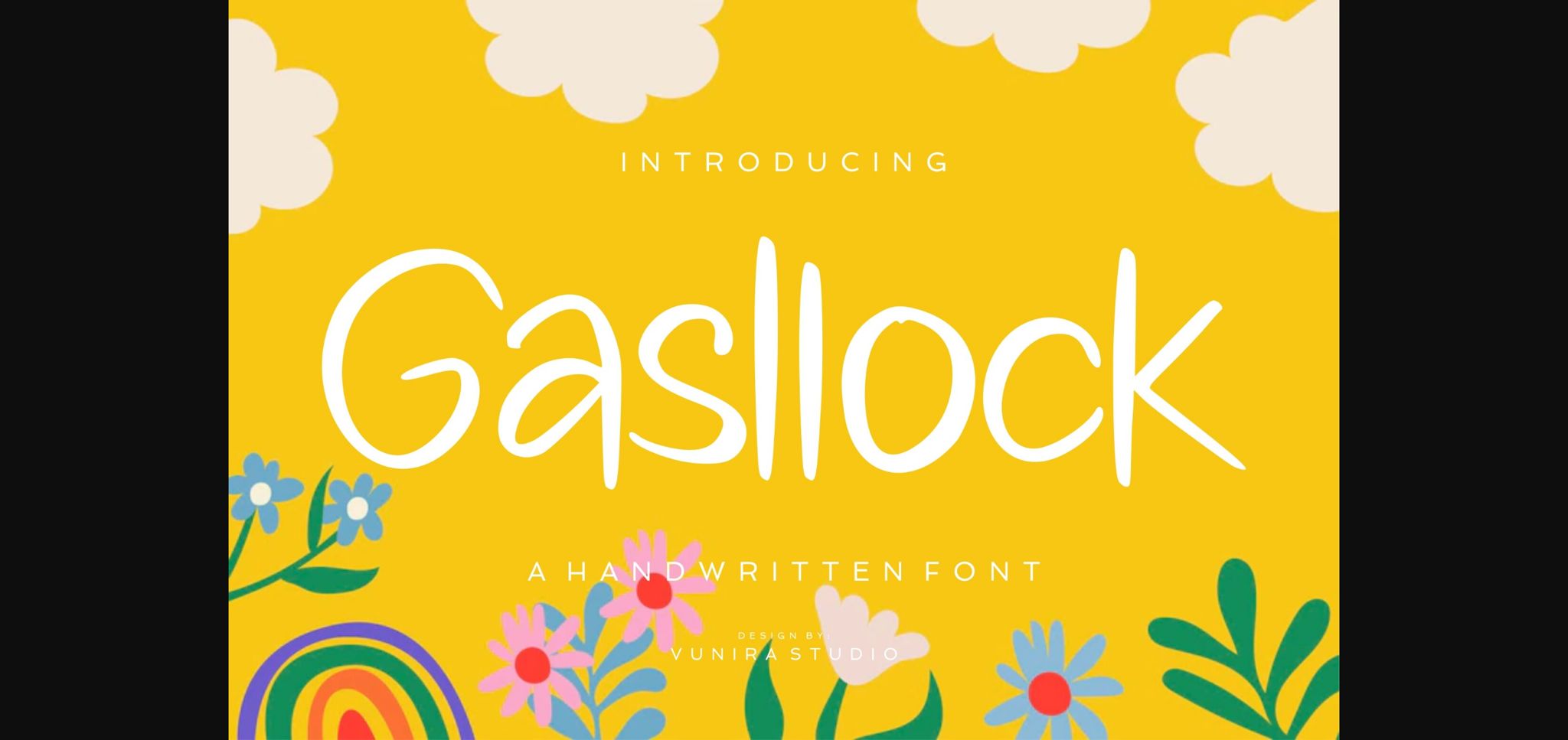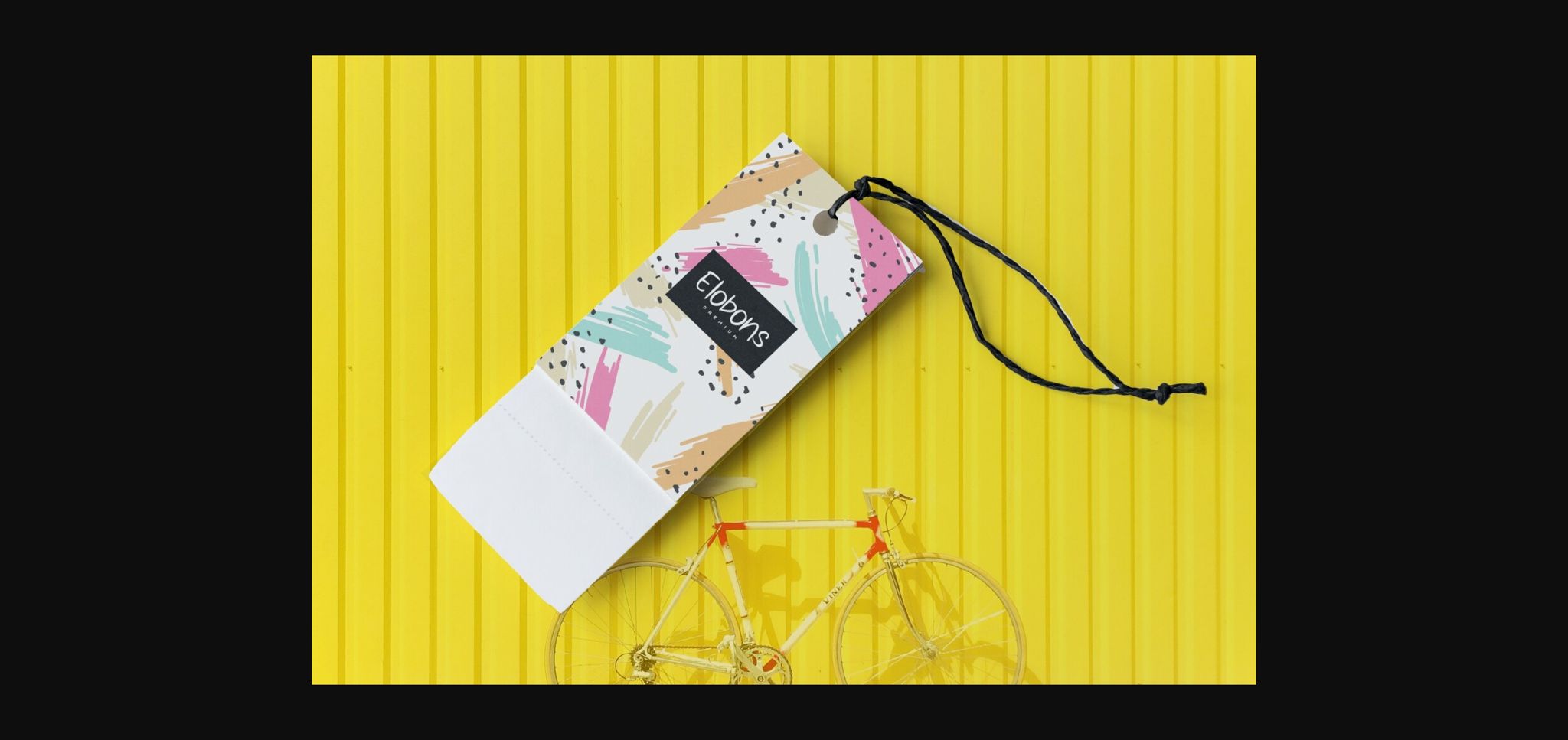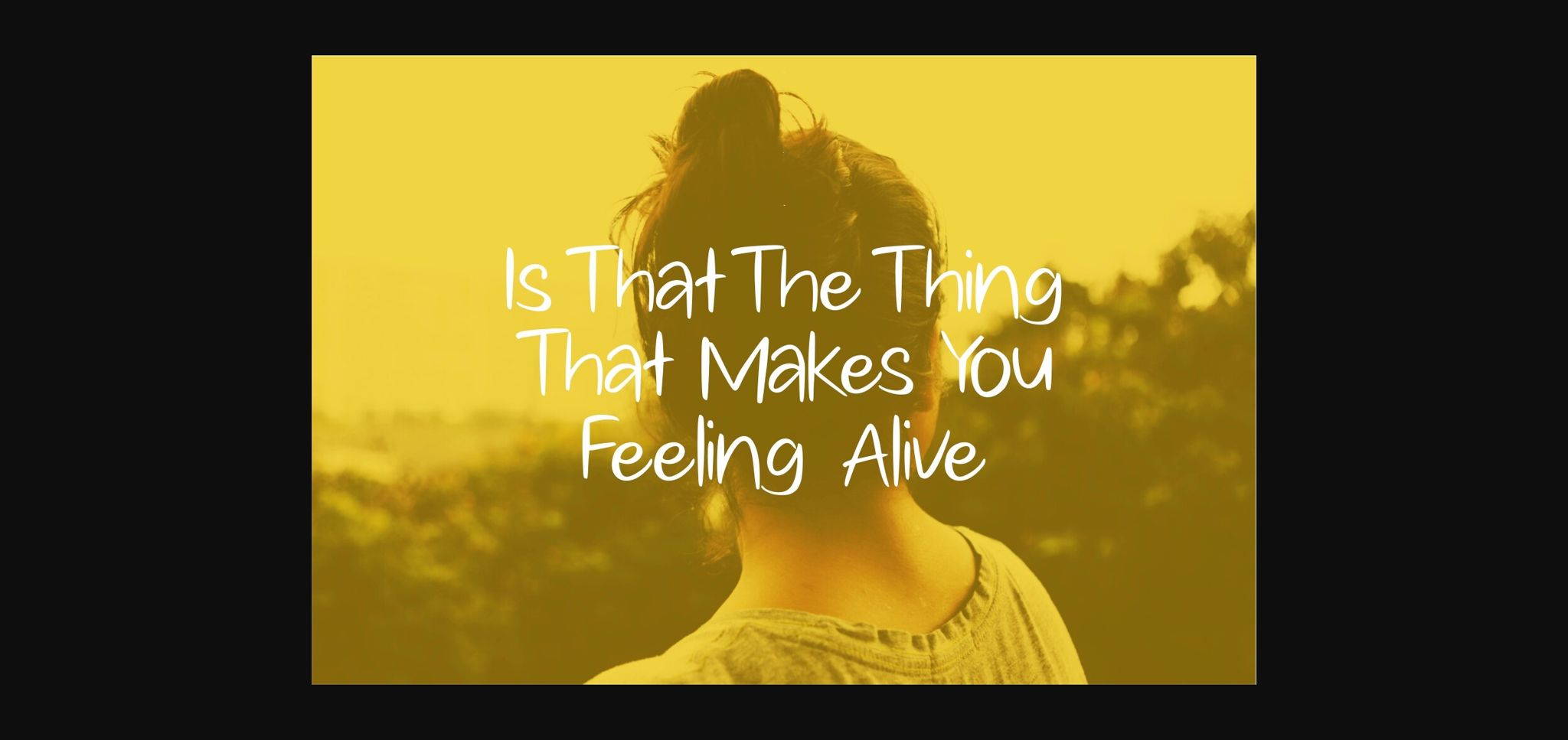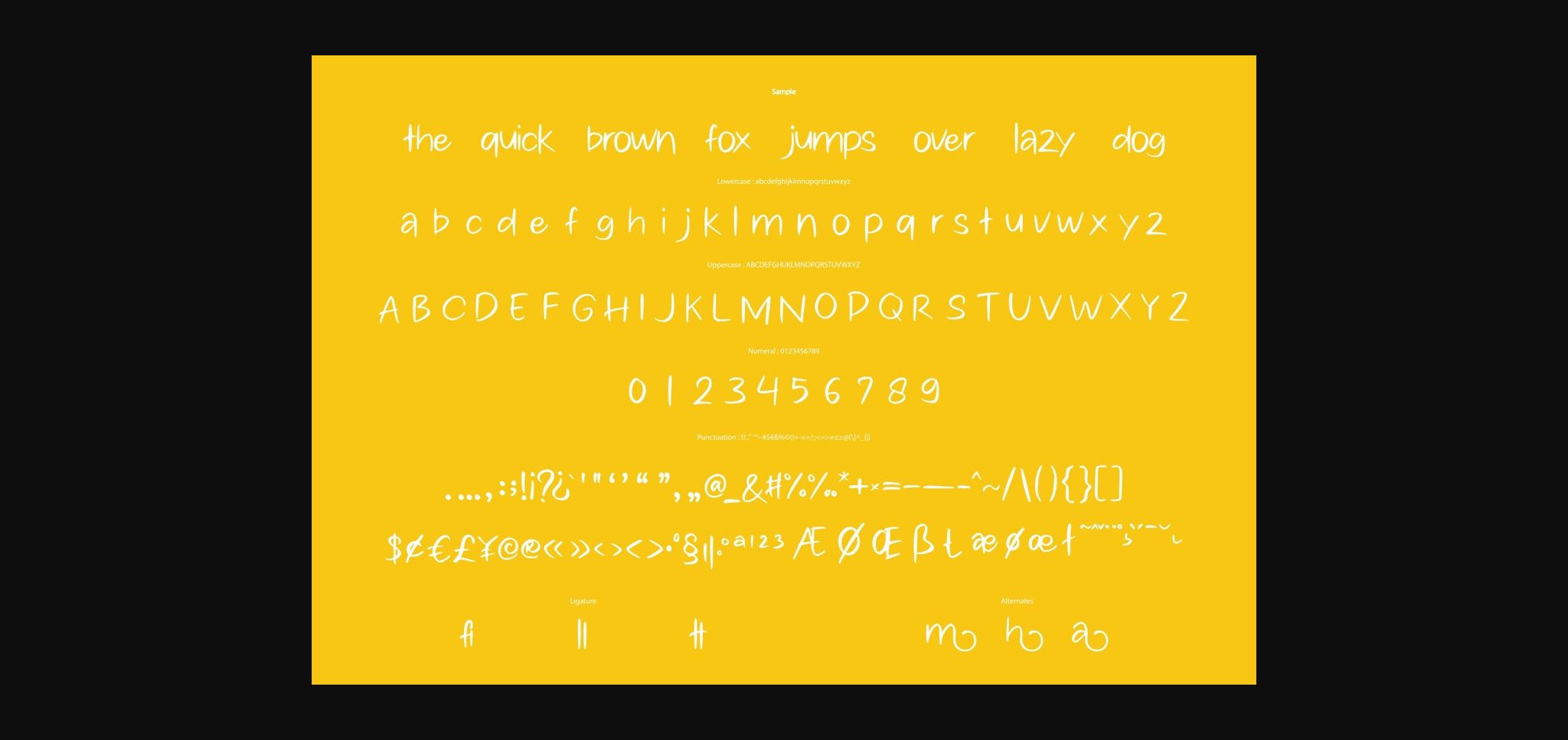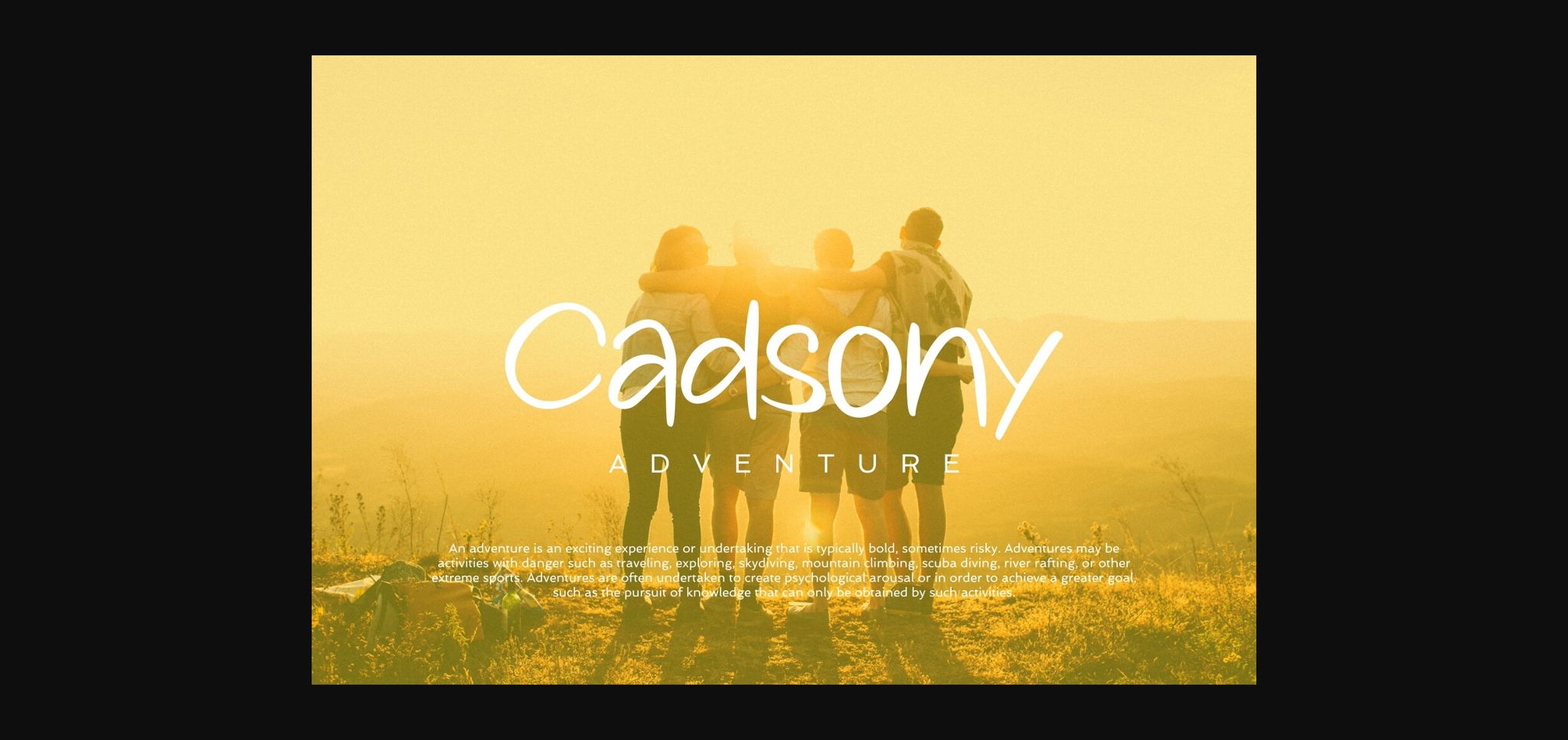
About Gasllock Font
Gasllock is a lively and fun handwritten font that injects a playful spirit into your projects. With its casual and whimsical style, Gasllock adds a touch of joy and personality to your text. Ideal for anything from invitations to creative projects, this font brings a sense of spontaneity and fun. Let Gasllock infuse your designs with a cheerful and carefree vibe, making your text as vibrant as your ideas.